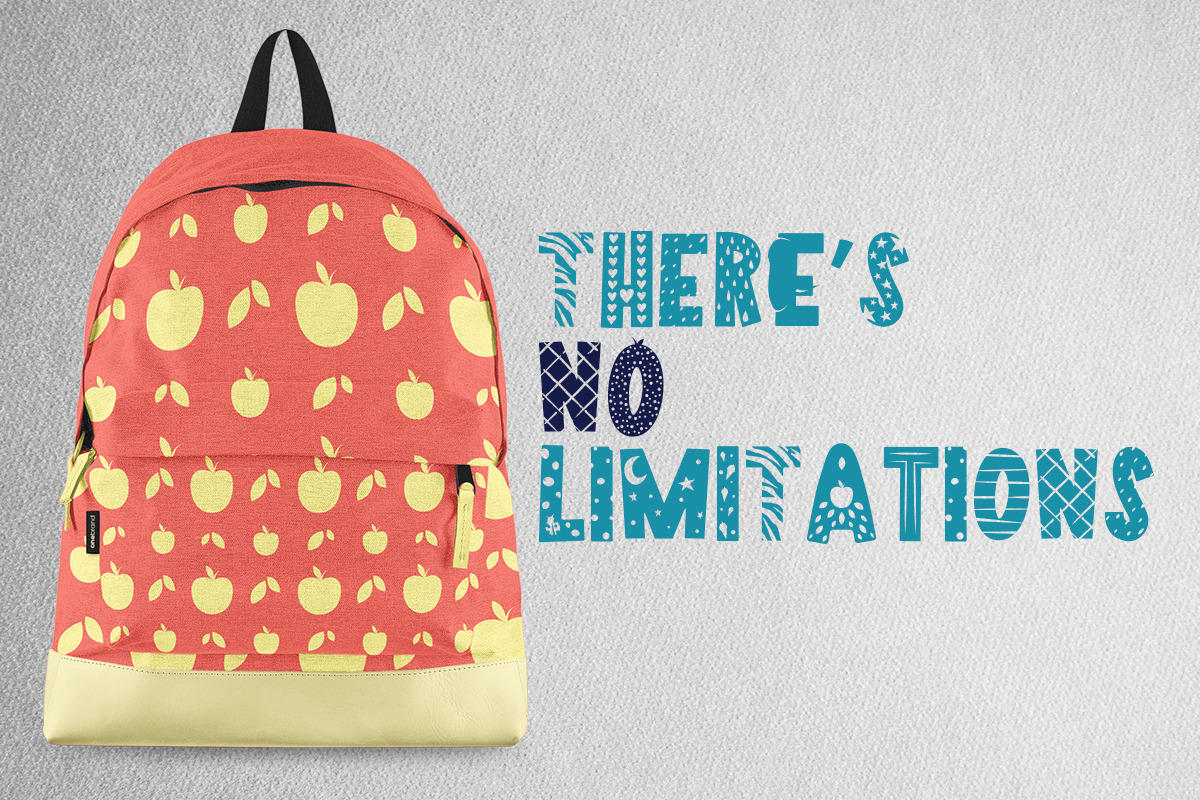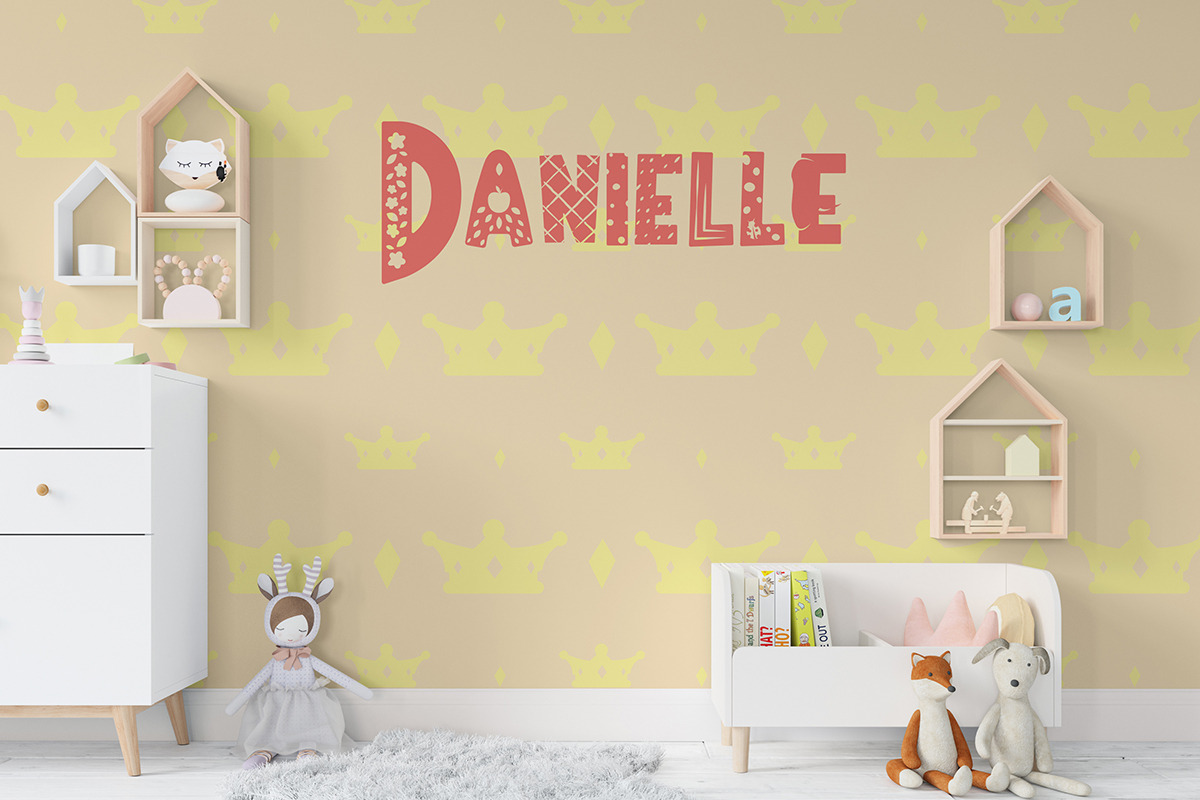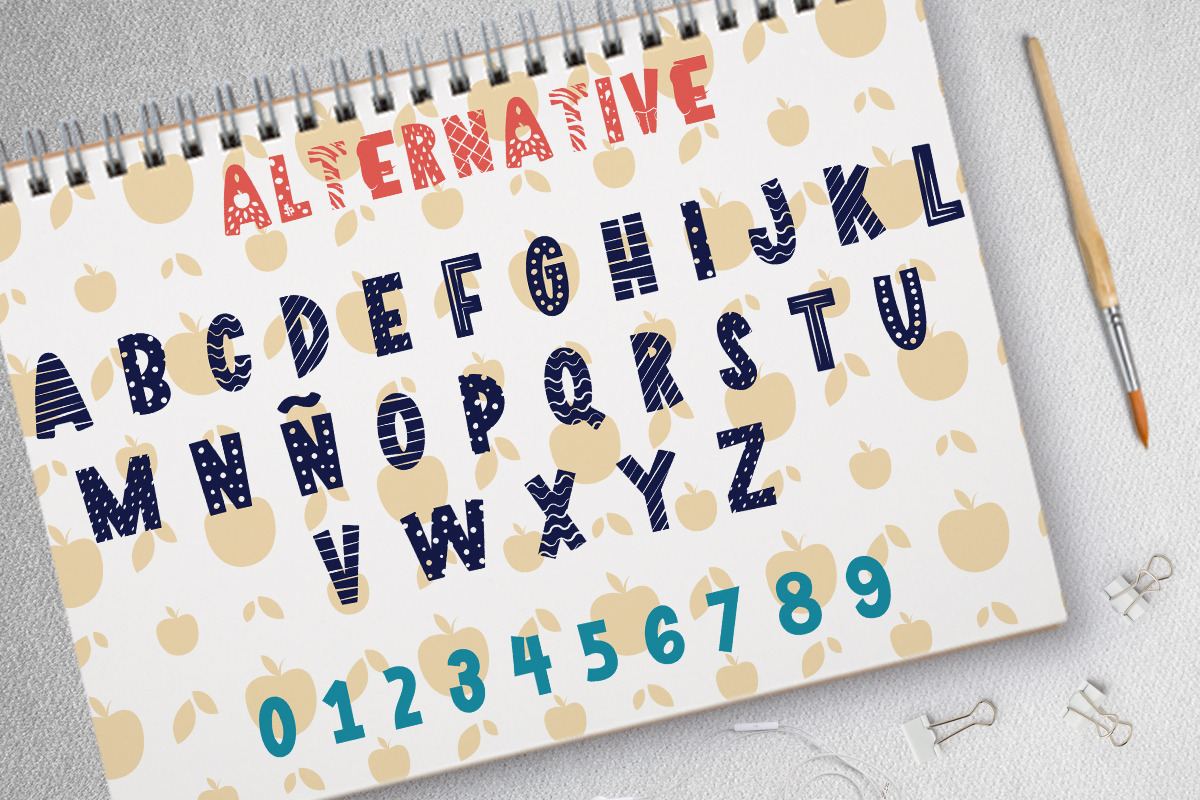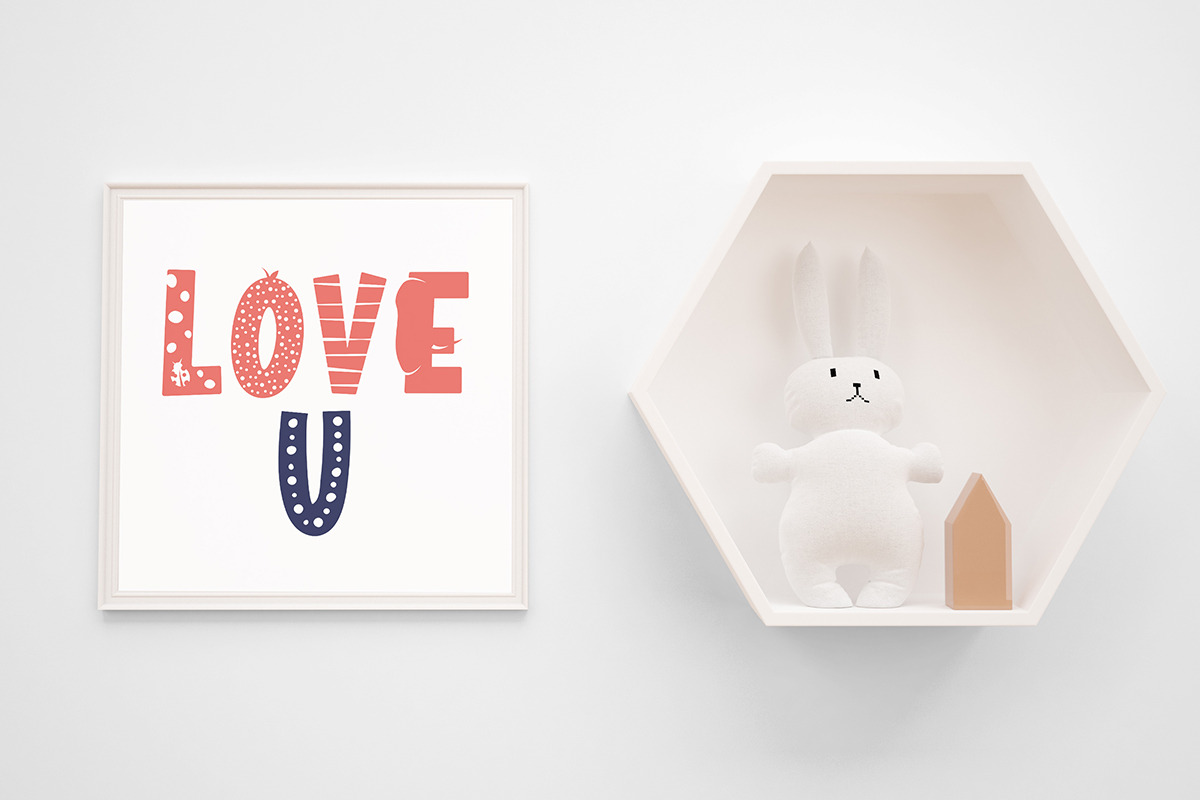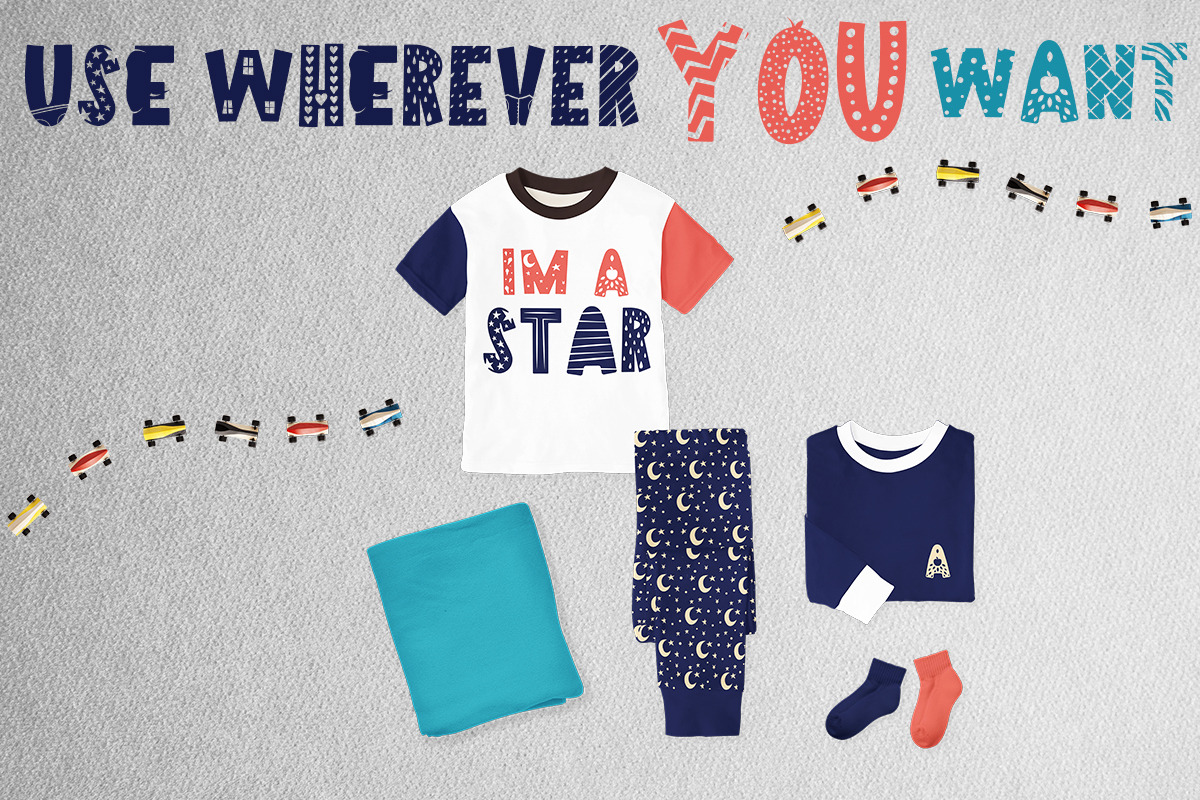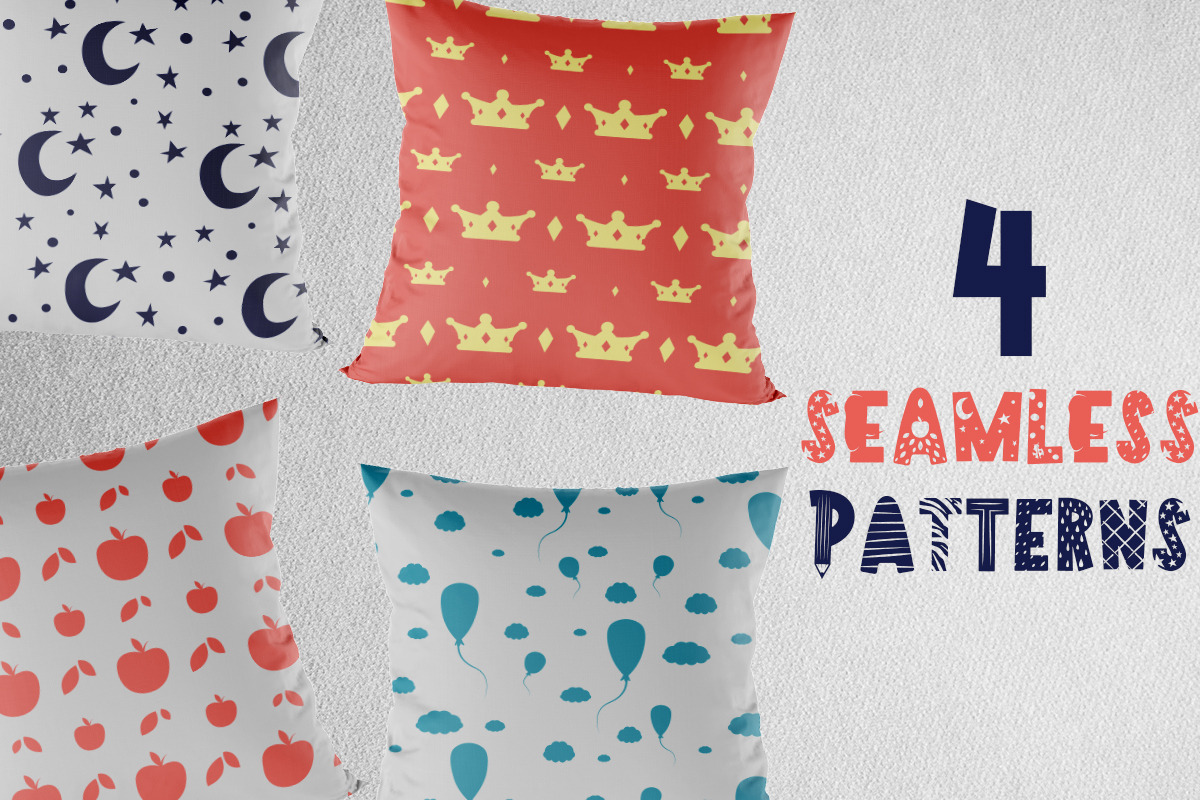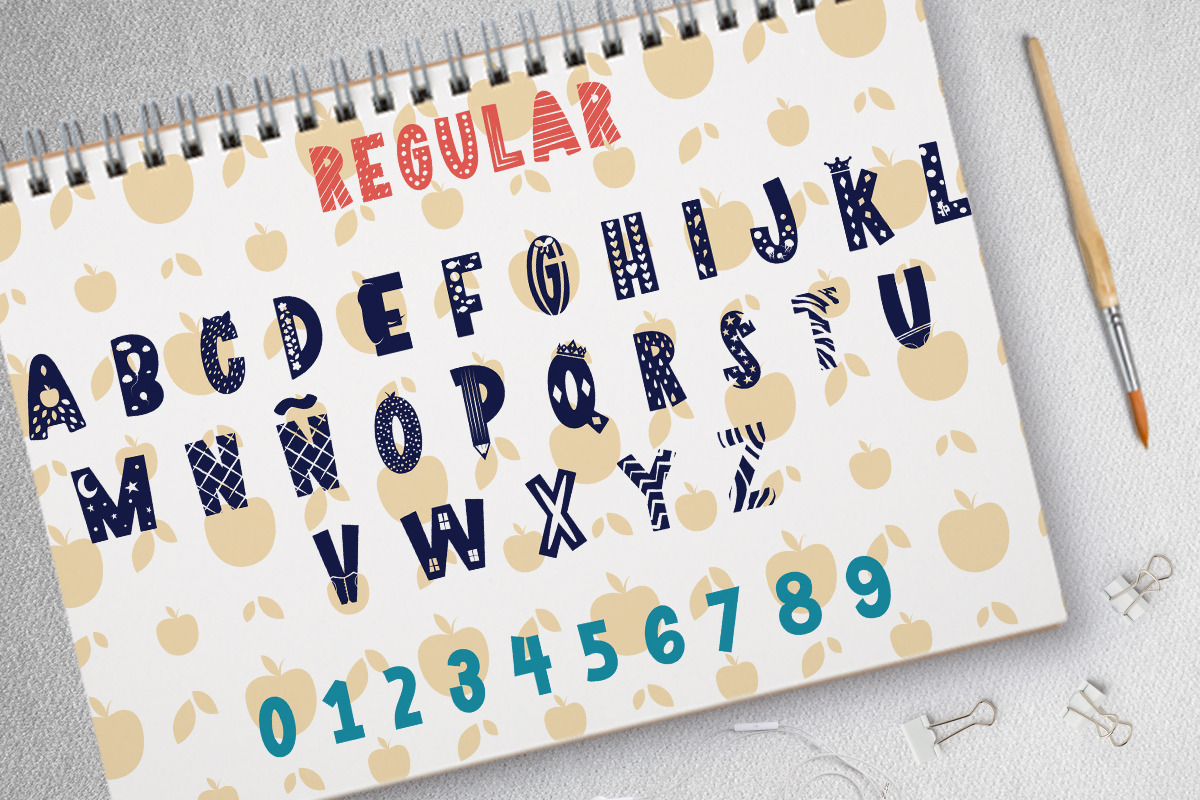
Pencil Case - Scandinavian kids font
Hey guys today I present to you the Pencil Case Scandinavian kids fonts, this playful product will give your products the youthful and childish touch you want. The best part is that it doesn't come alone it includes 4 seamless patters useful for anything you need. This font comes with an alternative typeface so you can mix and match whenever you feel the letters get repetitive. Use them as you want there's no limitations. Created using @fontself